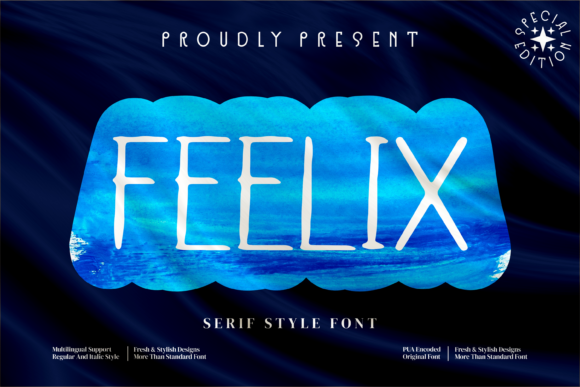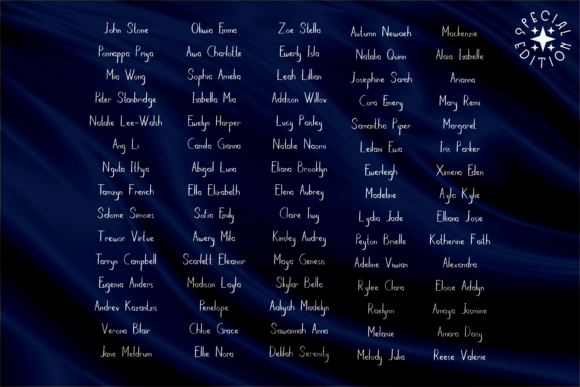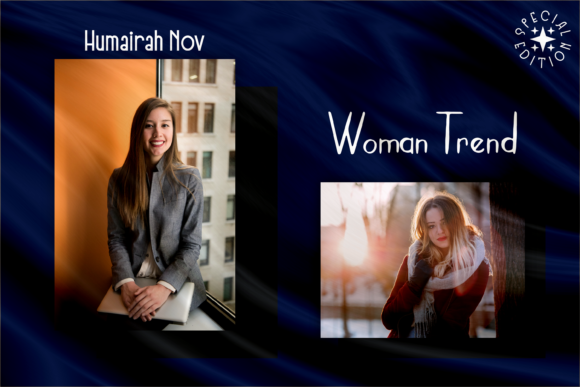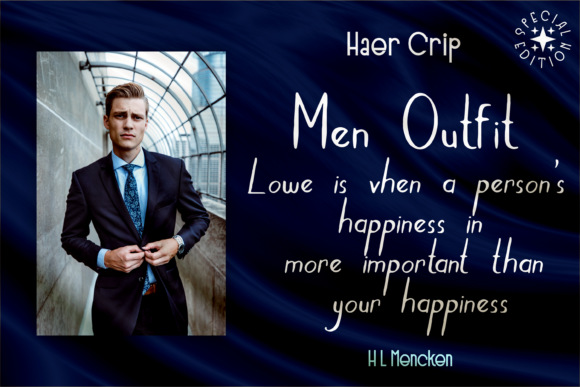
About Feelix Font
Feelix is a lovely handwritten font, perfect for almost any creative project! Stylish and versatile, this font will be an incredible asset to your font library, as it can add an authentic feel to any item!